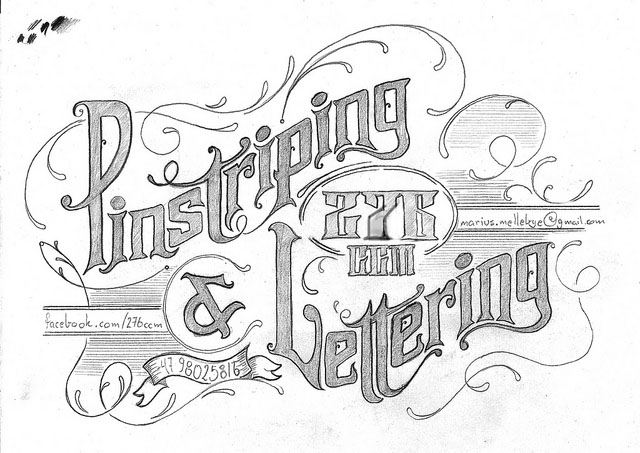
276ccm: My work and progress..
Starting my own thread where I can post my updates and stuff I´m working at, so I can more easily see my own progress (hopefully) and if getting replies with tips and tricks I can more easily go back and check.. hope that´s ok..
As I said in my "introduction" post, I´m from Norway, 41 in a few days and work as an upholster, beside working with leather, pinstriping and so.. mostly on motorcycles. I have been gilding a little on motorcycles, but only surface gilding and the sign making and reverse glass gilding have always fascinated me, so hopefully I´ll learn a lot from you guys :-) Actually already have..
So..My very first attempt at reverse water gilding.. Applied a mixture of gelatin and water on the back side of the glass and then carefully attached the genuine silver. (I didn´t have loose gold sheets, so I tried with what I had)
I didn't have distilled water, which I know I should have used, I obviously didn't clean the surface well enough and used genuine silver leaf instead of gold (I know white gold is recommended over genuine silver).. but still, it think it worked pretty well to be the very first time, even without doing it as properly as I should have. At least I got a feeling of how the process is.
Now I´ll try to paint a letter over the leaf, and then wash of the leftover silver.. I´m very exited about this..
A question for the gilders out there.. Loose genuine gold sheets costs the white out of the eye here in Norway (about $150 for 25 sheets of 22 karat) The exact same 22 karat costs under $45 at eBay.. the questions is: Is it just as good to use 22 karat as 24 karat? Is it just the colour of the gold that is different? If so, the 22 karat is a bit cheaper to practise with than 24 karat :-)
I know, very far from perfect, but the process was very exiting and seeing the mirror like effect taking place after it had dried up was pretty cool. The experienced ones probably think it looks pretty crappy, but got to start somewhere.. :-)
Painted the backside with one shot silver..
Wiped off the leftover silver a bit early as I was a little impatient.. then outlined it.. (the stroke shadows, is just for taking away the focus on the faults) :-)
There are two good things about this: 1, it´s a lot of fun and 2, it´s a lot of room for improvements :-)
No, it doesn't look bad at all. Seeing the crinkle lines is common and those will be diminshed (though in my case never eliminated) with practice.
You didn't mention if you wiped it down, after it was dry, with cotton to remove the loose silver before backing it up. That's a critical step (wipe in the direction of the seams and cracks) and you'll usually find that a second gild is needed to fill in the holidays. Then a final wash with warm size helps to brighten the finished gild before backing it up.
22kt works just as well as 24kt. I very rarely use 24kt for either surface gilding or glass gilding - rather 23kt is the staple. The lower the karat, the higher the silver content and thus the heavier it is - requiring a stronger ratio of gelatin in your size. The more gelatin in the size, the cloudier the finish. So these are just some factors to consider.
If you successfully applied the silver, you'll find 22 or 23 karat to be easier to work with.
Marius,
Holding it up to the light is a sure road to frustration. The leaf is so thin that you will ALWAYS see thin spots, cracks & holes. That microscopic sheet of gold is all that is needed and it is so reflective that many imperfections will basically disappear when it is backed-up.
However, if you put a something dark on the other side of the glass like construction paper or black plastic, you can easily see those open areas which will show through. If it's not too major you can simply patch those areas or you can just do a second gild over everything and thereby fill those gaps.
I know I am going to get shot at for saying this but the large 7 looks wrong since it has been changed from a "continental" 7.
There are three 7's in the artwork, two written continental style and the largest without.
I think they should all look the same, just my 2 cents worth.